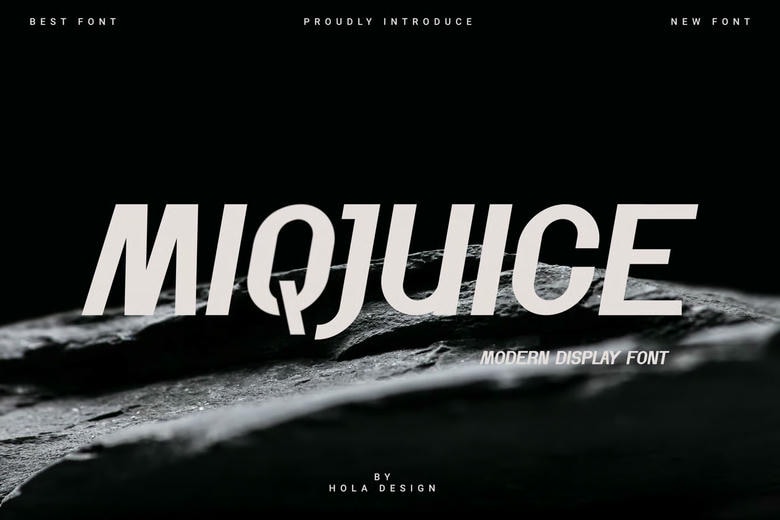
Miqjuice Font
Miqjuice Font is a bold font that is very unique and it stands out. Its special nature and contemporary appeal makes it usable in any one of the most diverse creative tasks- ideal in labels, film screens and titles, posters, gigs, album covers, logos, etc. Among the many things it can do is to make a statement where your images are required.
Miqjuice Sans Serif Font